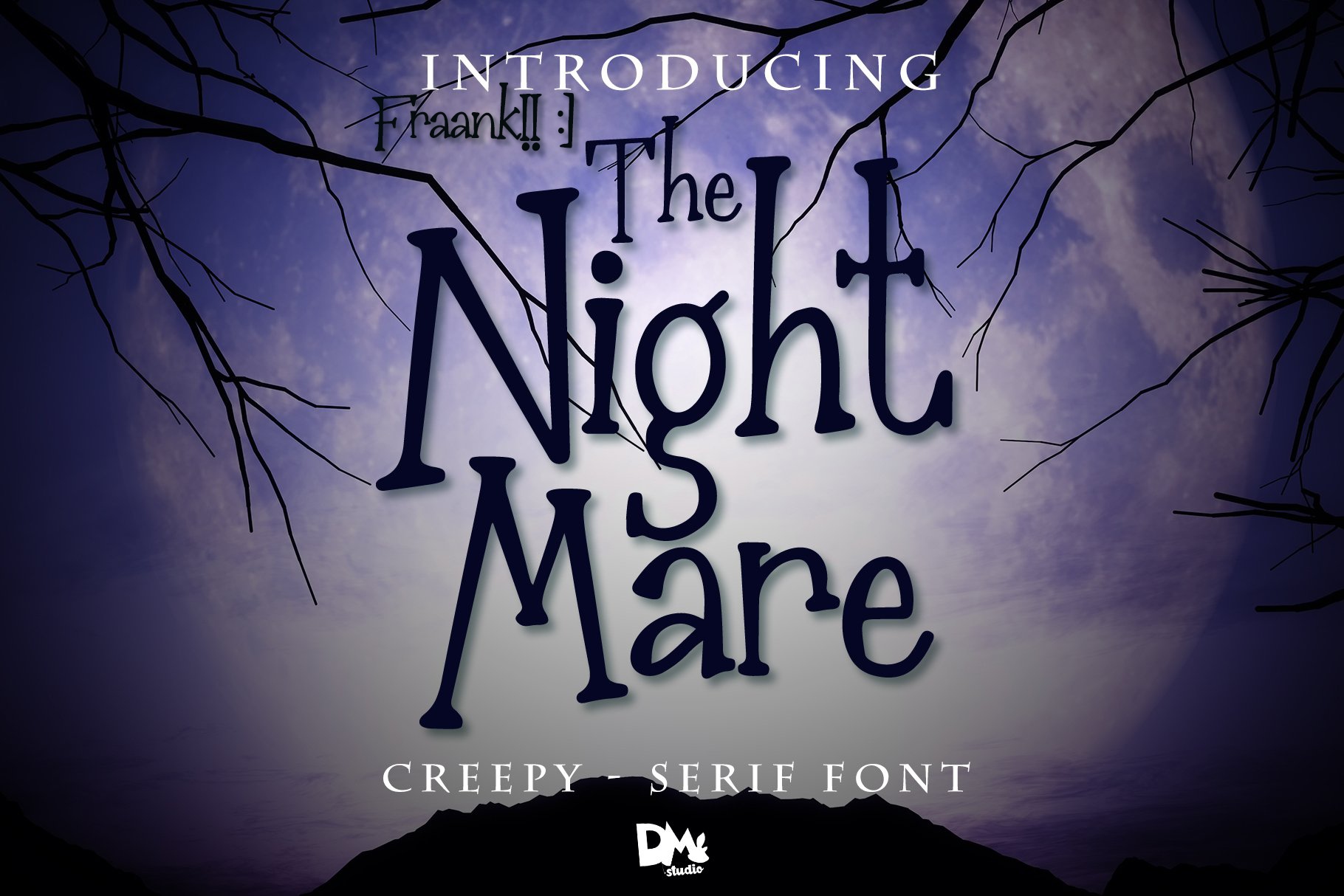
Creepy Serif Font
Creepy Serif Font is perfectly suited for horror movie titles, haunted attraction signage, gothic novel covers, Halloween marketing materials, spooky game interfaces, dark fantasy book designs, supernatural thriller posters, eerie restaurant branding, and macabre entertainment campaigns.
What makes Creepy Serif Font so exciting is its spine-chilling atmosphere and masterfully unsettling design that instantly creates feelings of dread and supernatural suspense while maintaining exceptional readability through every hauntingly crafted letterform. This terrifying typeface combines the classical authority of serif typography with disturbing details and eerie proportions that evoke images of ancient curses, haunted manuscripts, and otherworldly encounters. The font's distinctive character shapes and ominous styling create an immediate sense of foreboding and supernatural presence that resonates with horror enthusiasts and audiences seeking genuinely frightening experiences. Creepy Serif Font stands out through its ability to convey terror, supernatural authority, and gothic elegance, making it perfect for projects that need to establish horror credibility while creating memorable experiences that celebrate the dark side of entertainment and supernatural storytelling.
The Creepy Serif Font family includes Light, Regular, Medium, and Bold weights, each maintaining the font's distinctive horrifying character while providing design flexibility for various spine-chilling applications. The family also features disturbing alternates, gothic ornaments, and supernatural elements that enhance the font's terrifying appeal and provide comprehensive solutions for horror-themed design projects.
When you choose Creepy Serif Font Free Download, you're selecting a typeface that brings authentic horror atmosphere and supernatural sophistication to your creative projects. This font excels in creating designs that need to convey fear, gothic elegance, and supernatural authority. Its terrifying serif appearance makes it particularly effective for horror entertainment brands, haunted attractions, and dark projects that want to establish genuine fright while appealing to audiences seeking authentic horror experiences.
The technical mastery of Creepy Serif Font includes an extensive character set with uppercase and lowercase letters, numerals, punctuation marks, and supernatural symbols that maintain the font's horrifying character. The font has been carefully crafted to ensure optimal performance across both digital and print applications while preserving the disturbing details that give it its distinctive creepy character and gothic appeal.
Whether you're designing horror entertainment materials, creating Halloween marketing campaigns, developing supernatural branding, or crafting designs that need to convey genuine terror and gothic sophistication, Creepy Serif Font delivers the perfect combination of horrifying authenticity and professional reliability that makes your projects spine-chillingly memorable for audiences seeking authentic horror experiences and supernatural entertainment.